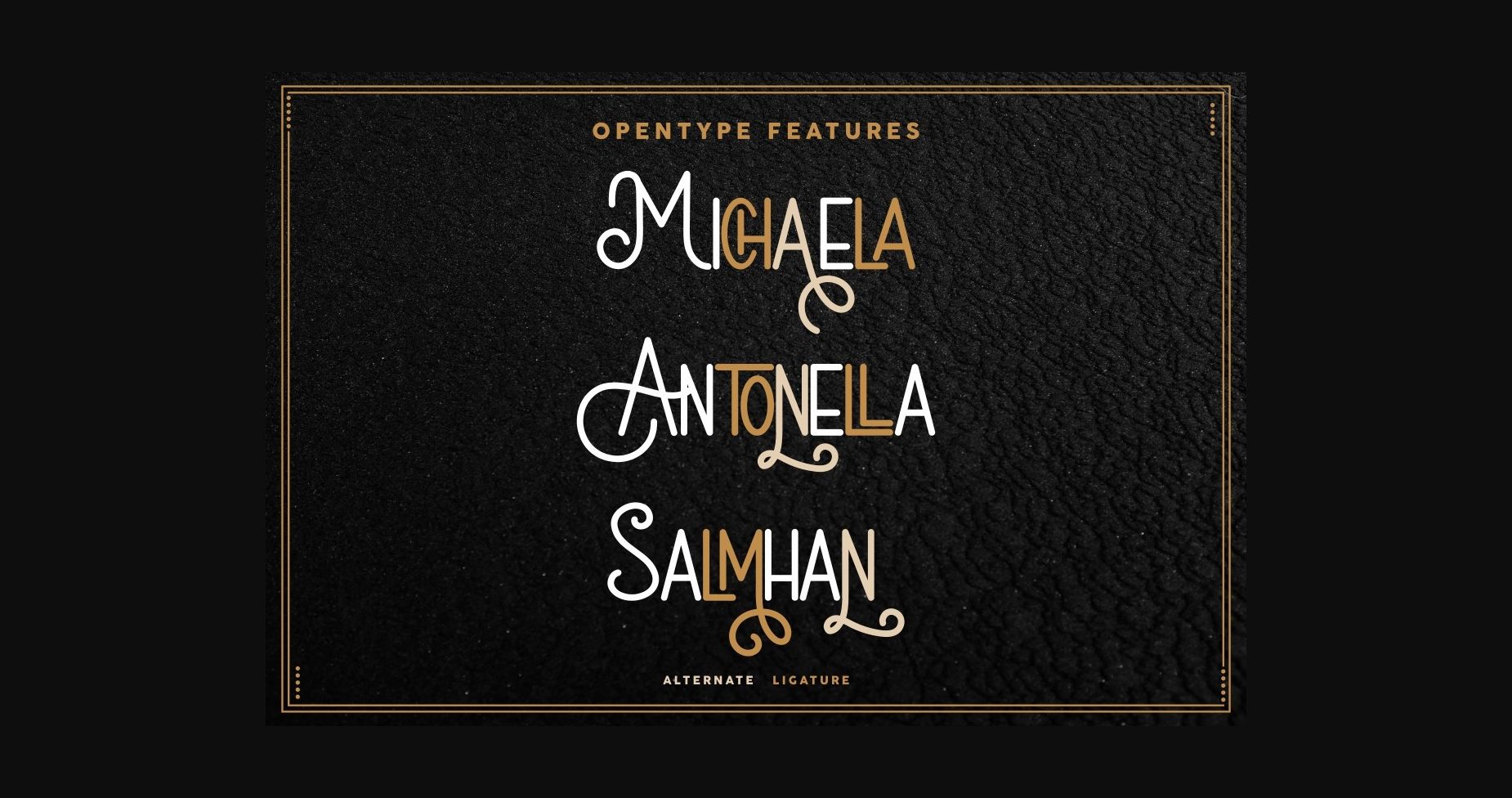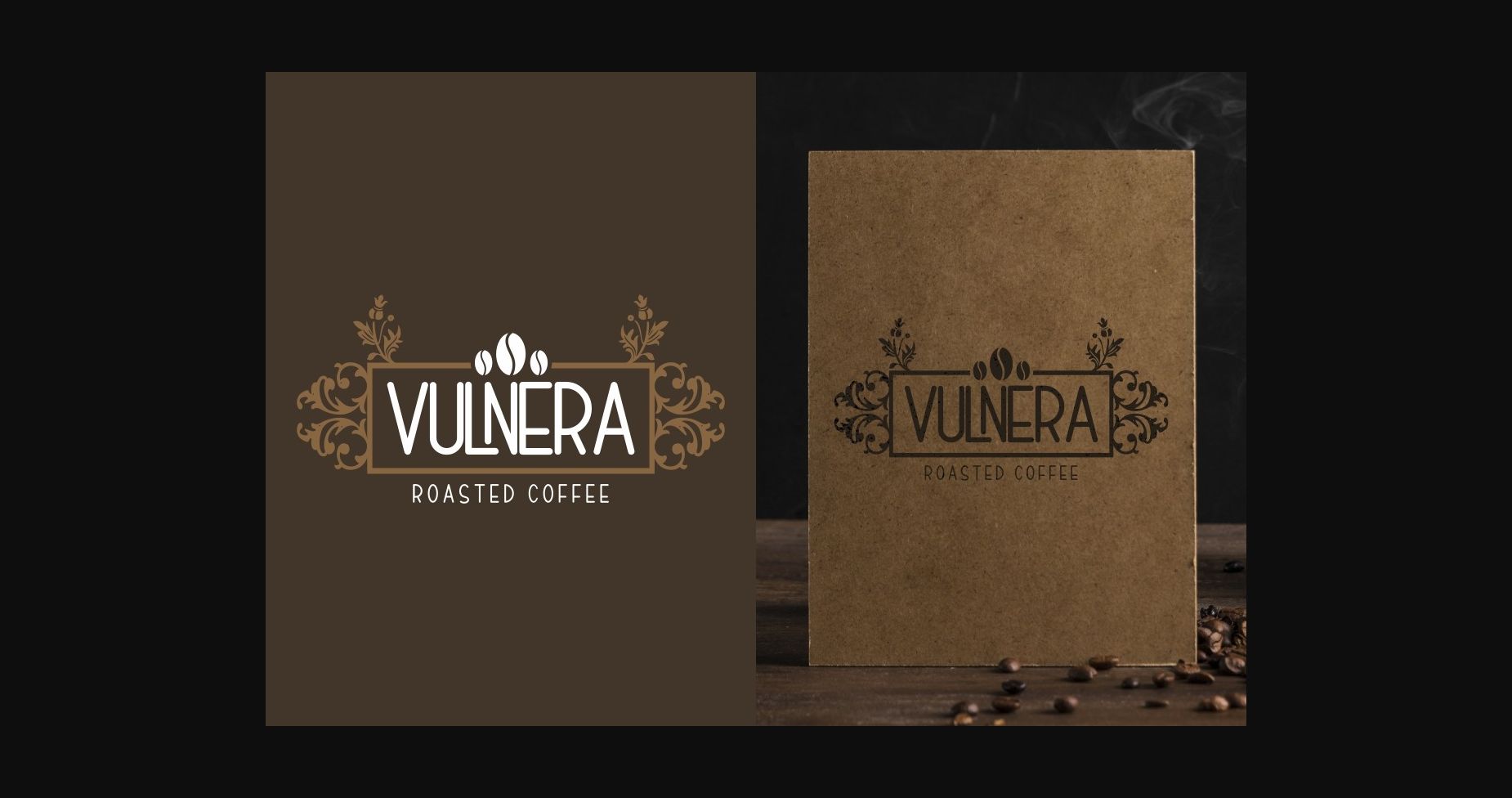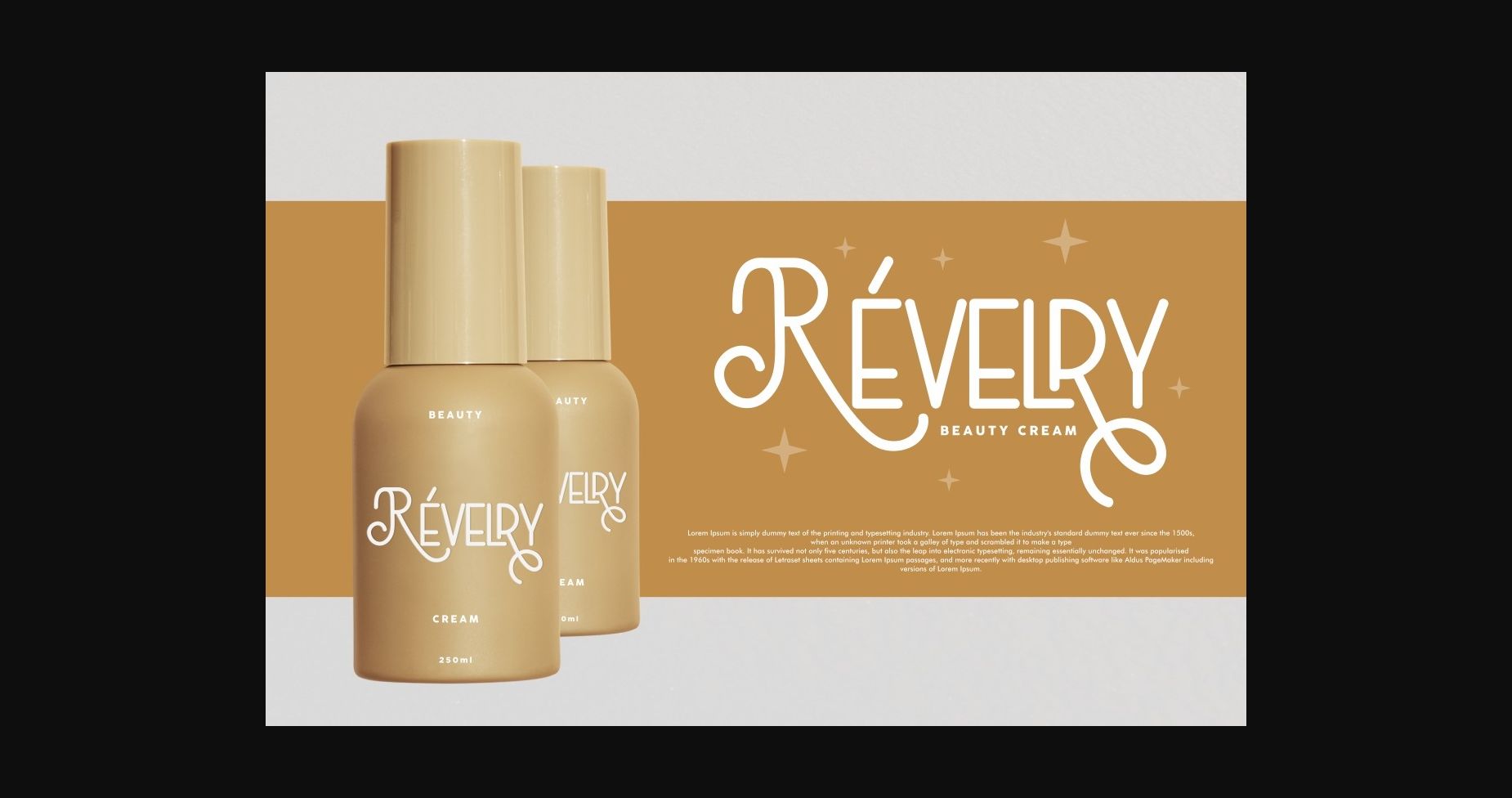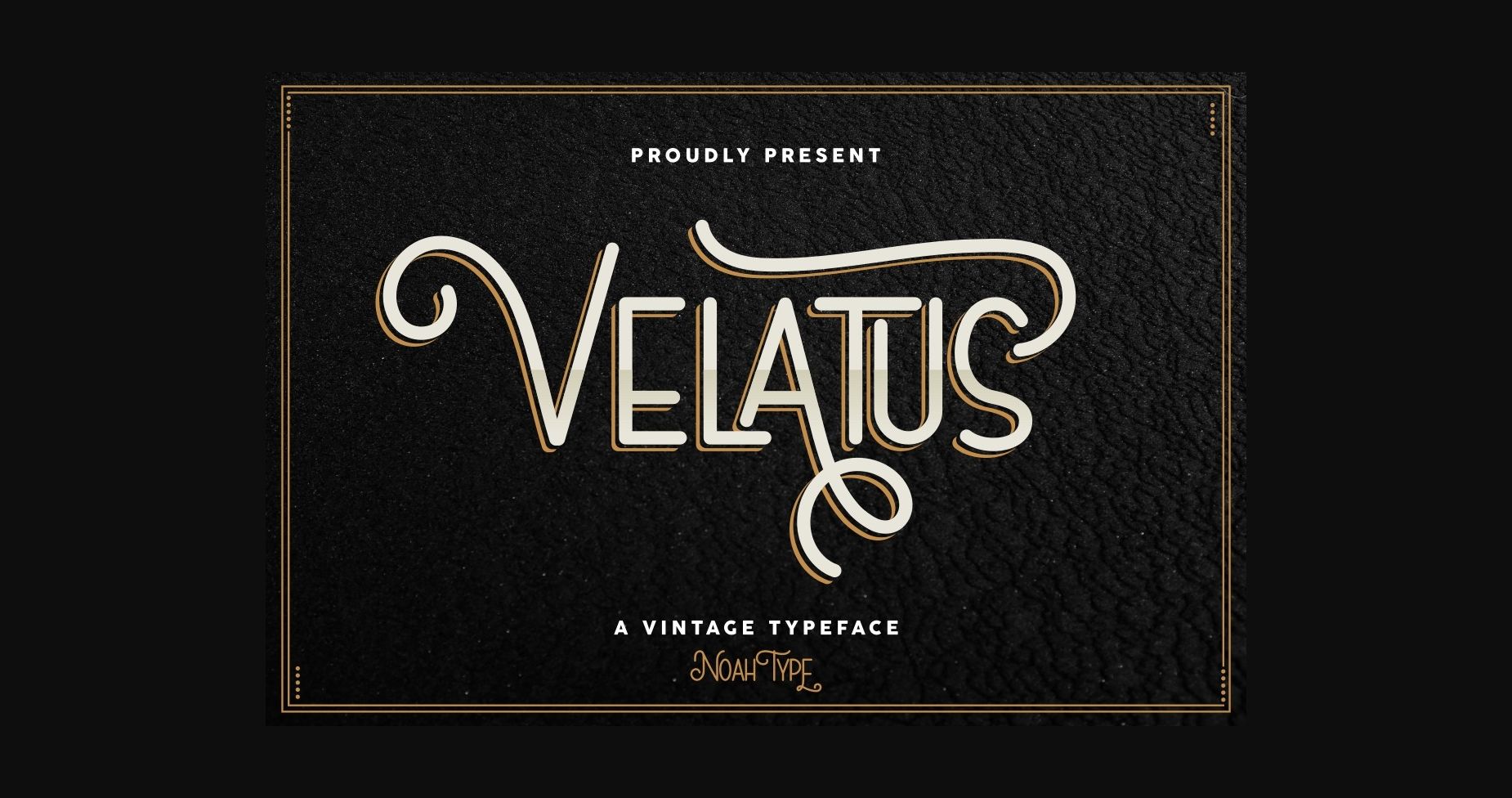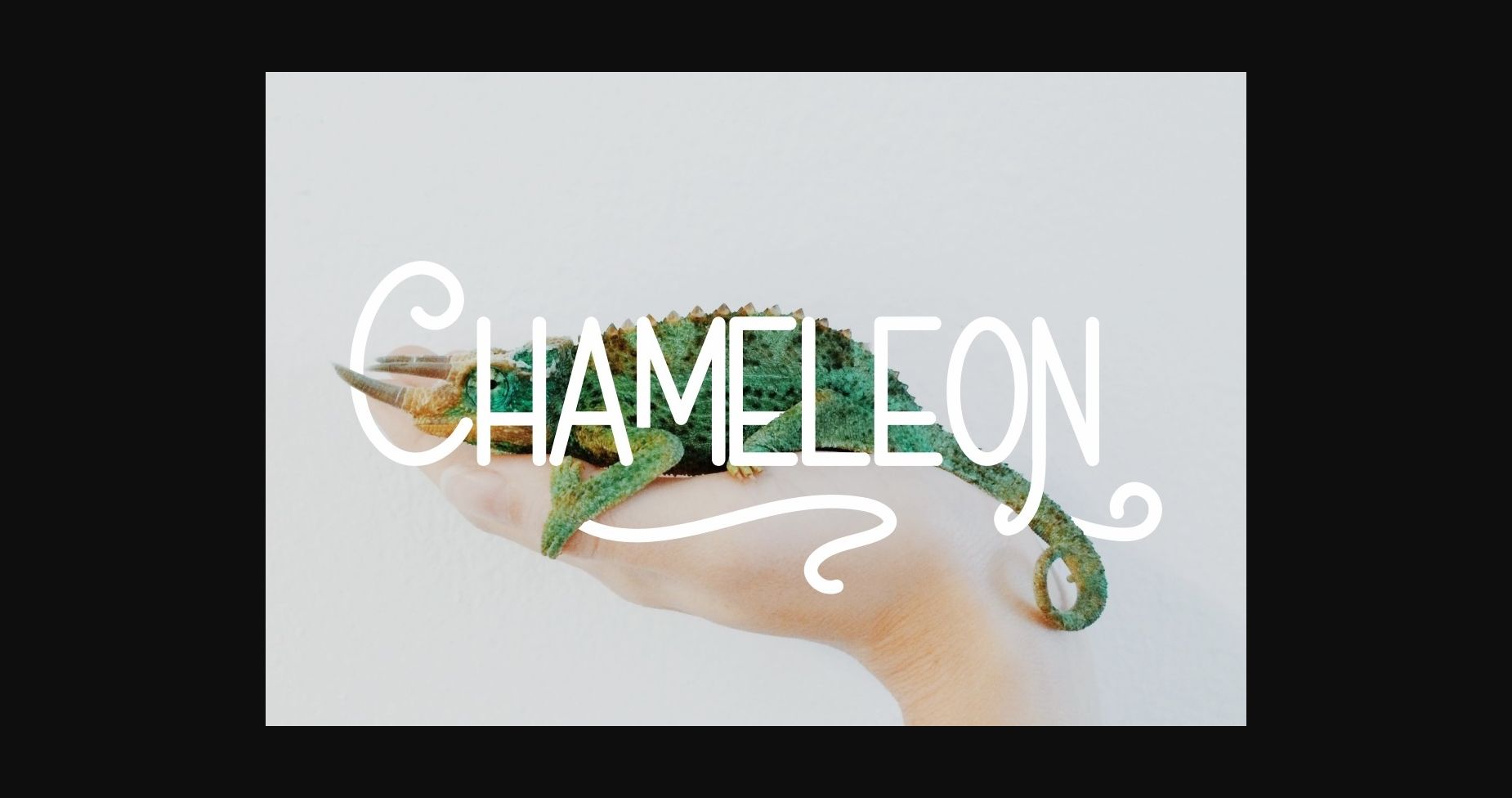
About Velatus Font
Velatus is a distinct and vintage styled sans serif font. It is PUA encoded which means you can access all of the glyphs and swashes with ease!
It will elevate a wide range of crafting ideas, from cards, to branding, labels and much more.